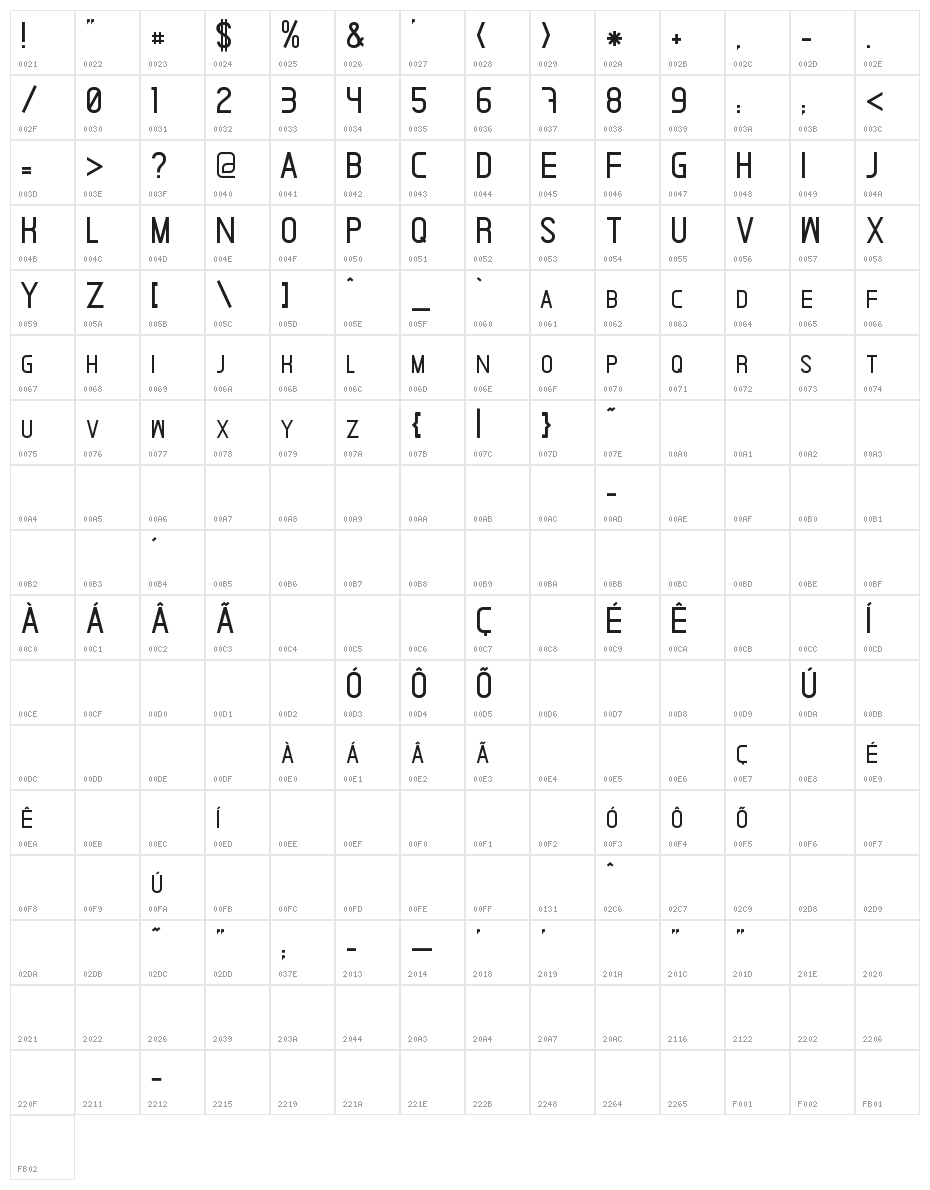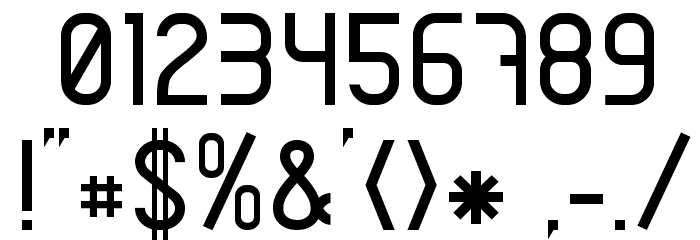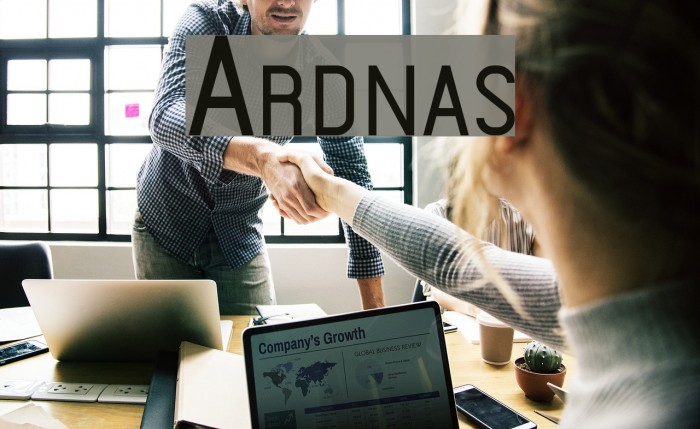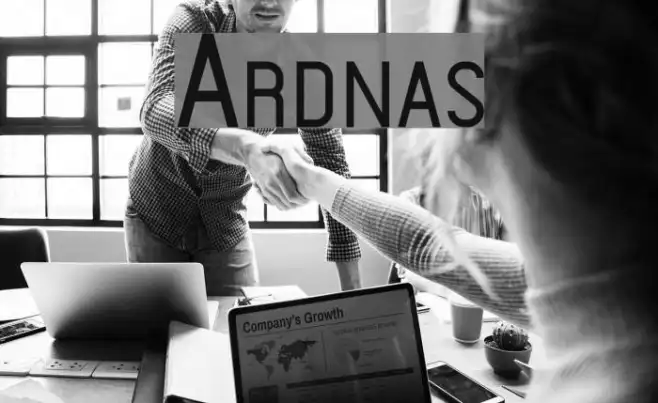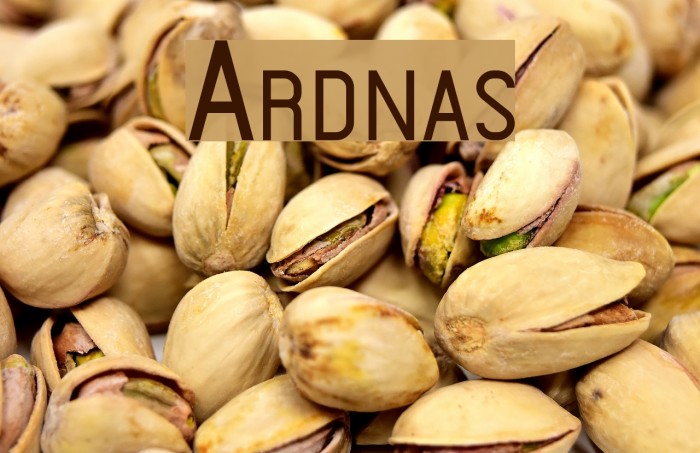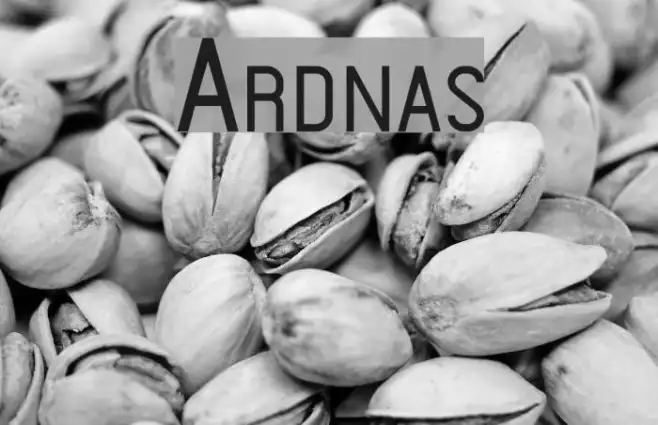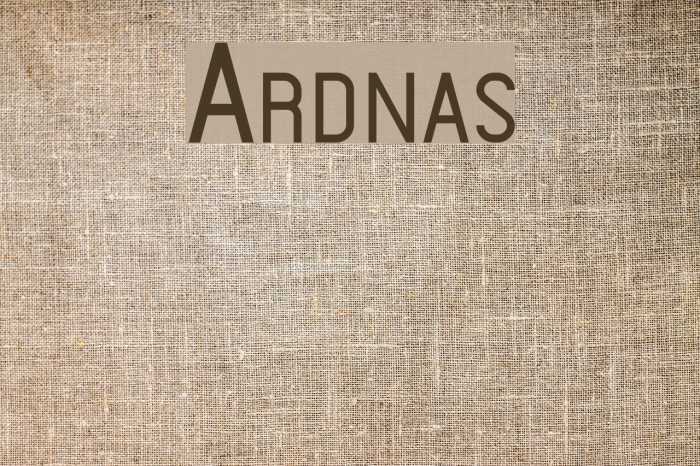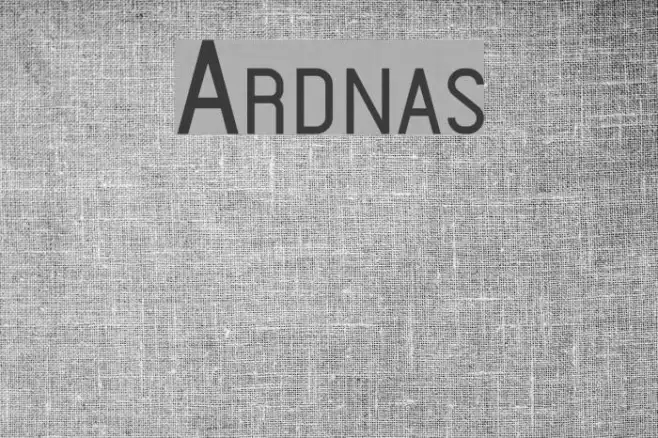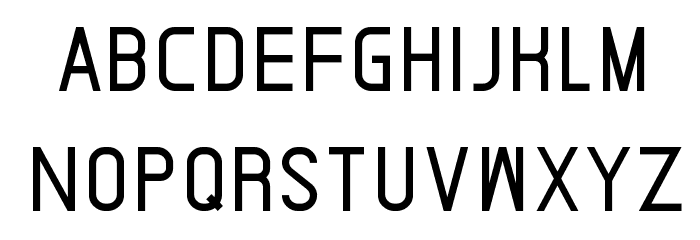
Ardnas Font
Ardnas Description
This font features a modern, geometric design with clean lines and a structured appearance. The uppercase letters are bold and uniform, with a slight angularity that adds a contemporary feel. The lowercase letters maintain the same geometric style, ensuring consistency throughout. The numerals are clear and easily distinguishable, making them suitable for various applications. Special characters are well-defined, complementing the overall aesthetic. The font's simplicity and precision make it versatile for both digital and print media.
| Use Case | Headlines, Body text, Logos |
| Proposed Projects | Ideal for branding, advertising, digital interfaces, and editorial design. |